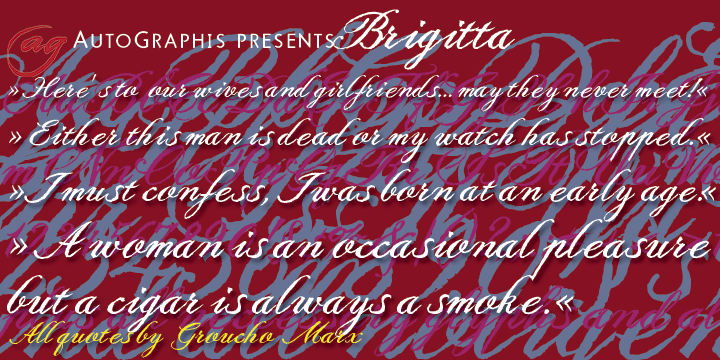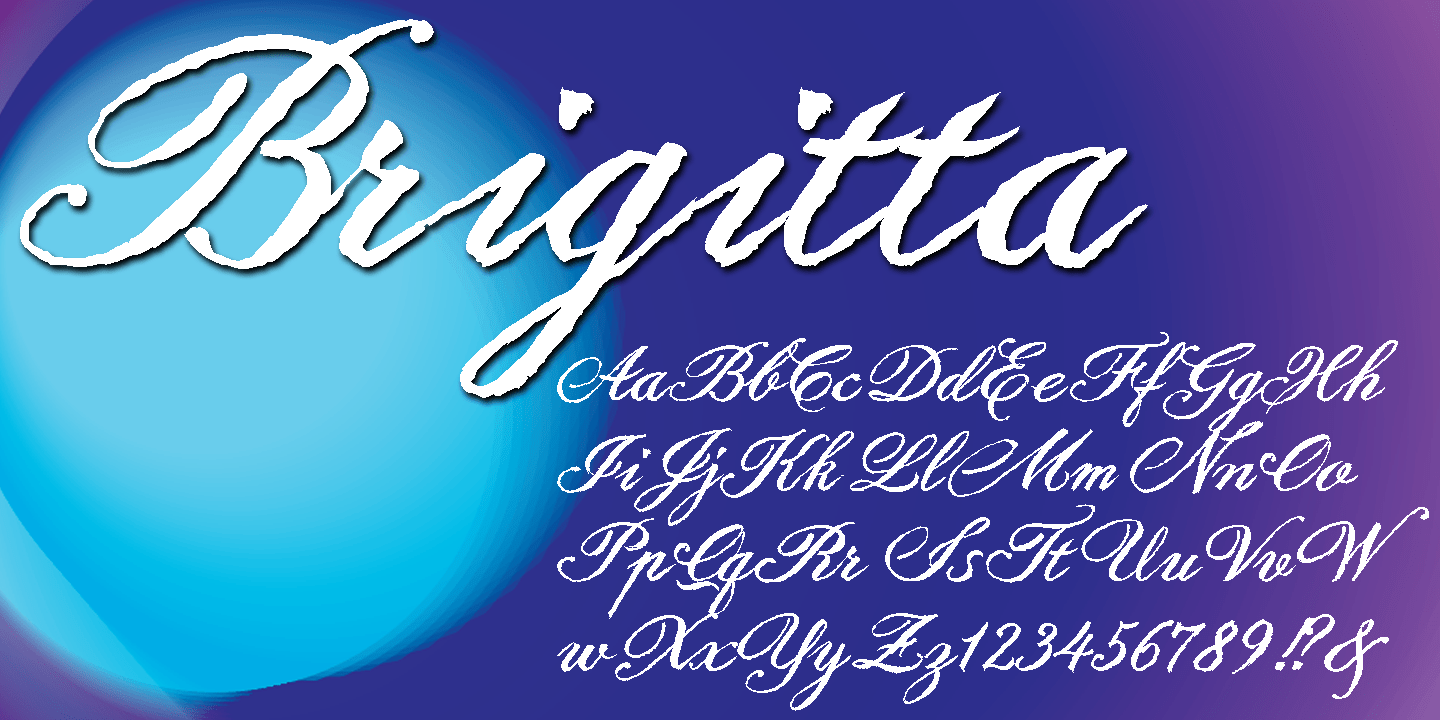
Brigitta
Font Family by Autographis
Buy NowBrigitta is the complementary joining script that can be mixed with Annabella. Also written with a Japanese brush on rough paper, first scanned and then carefully finished by hand on screen.